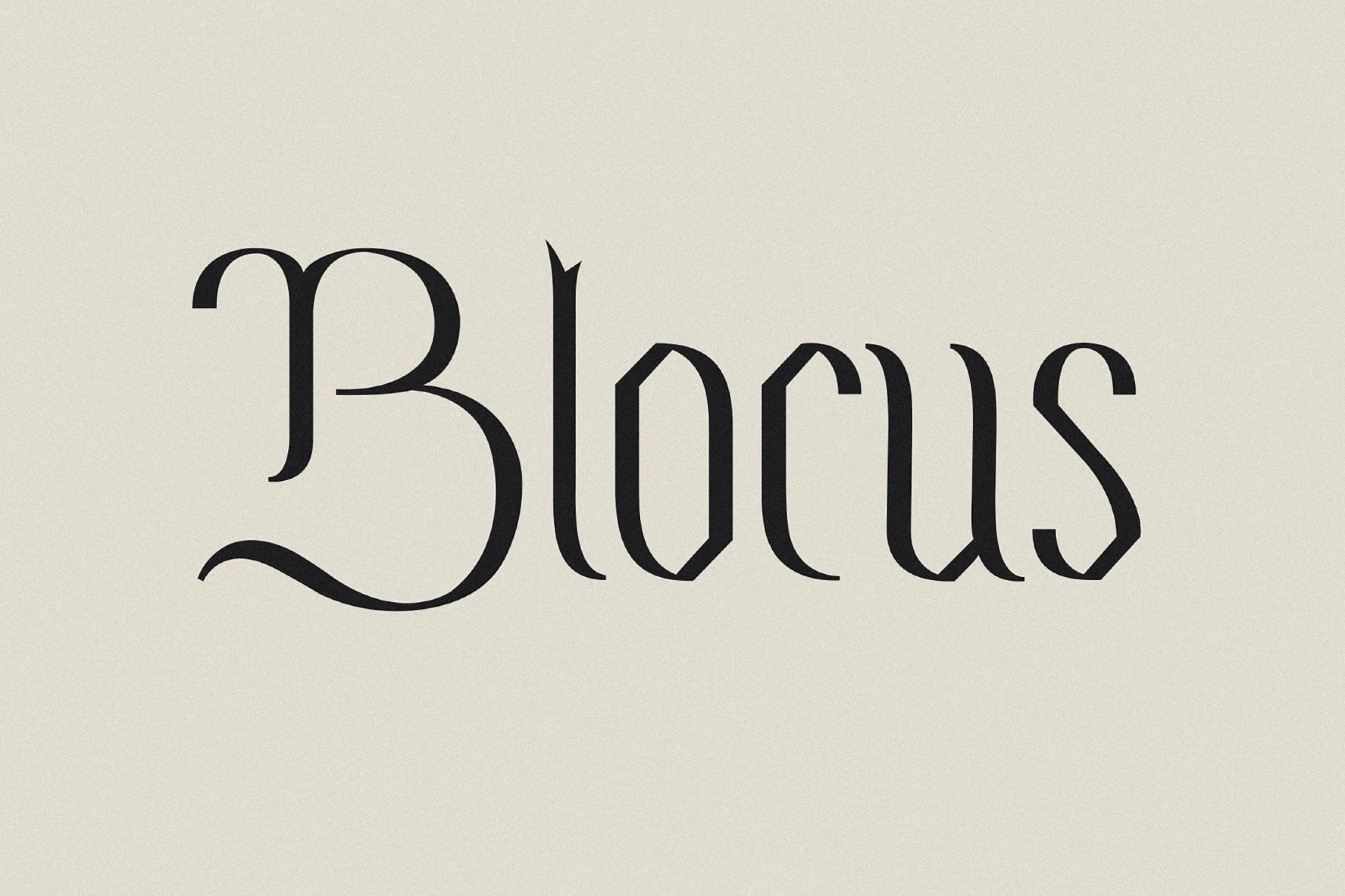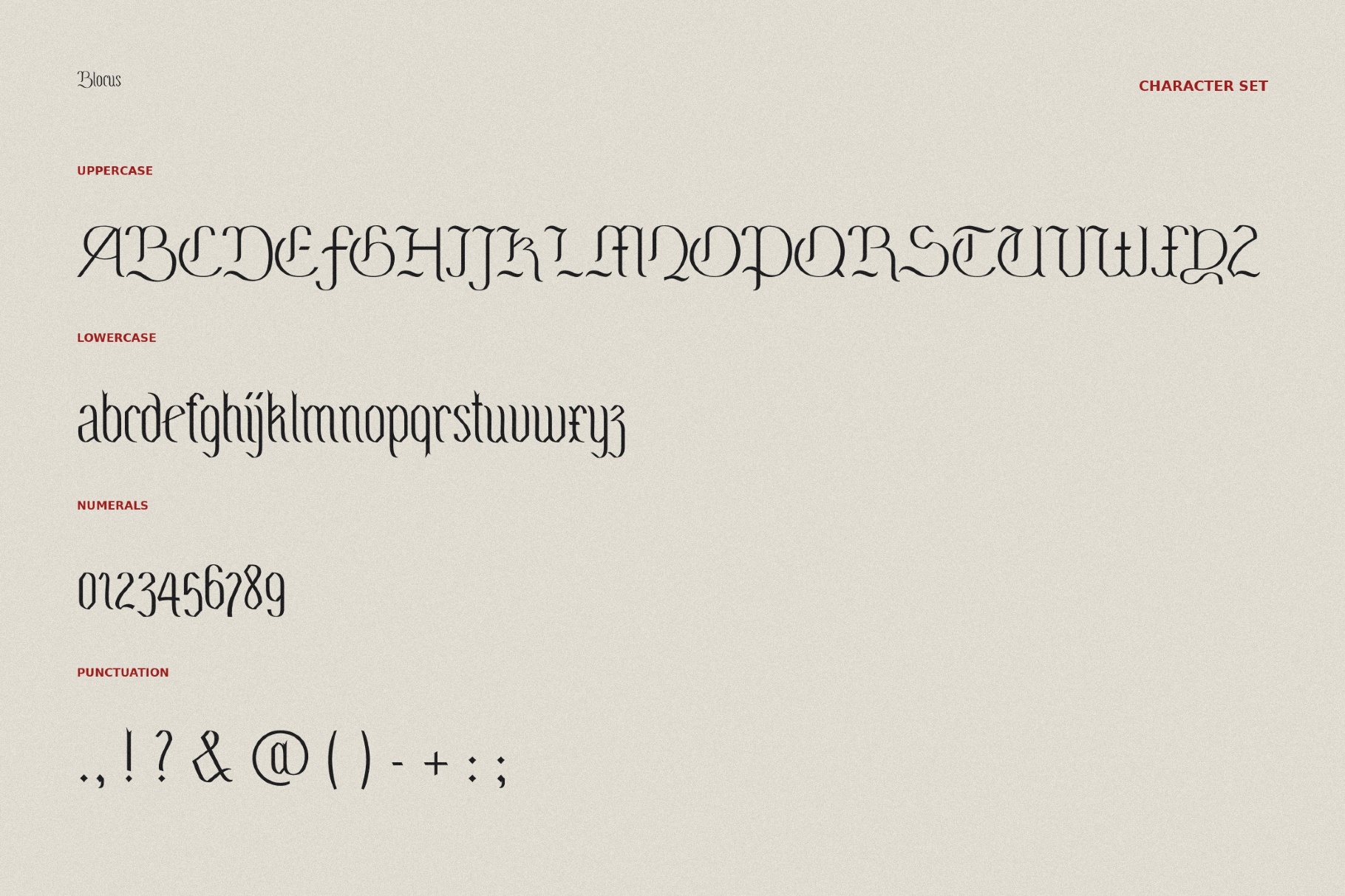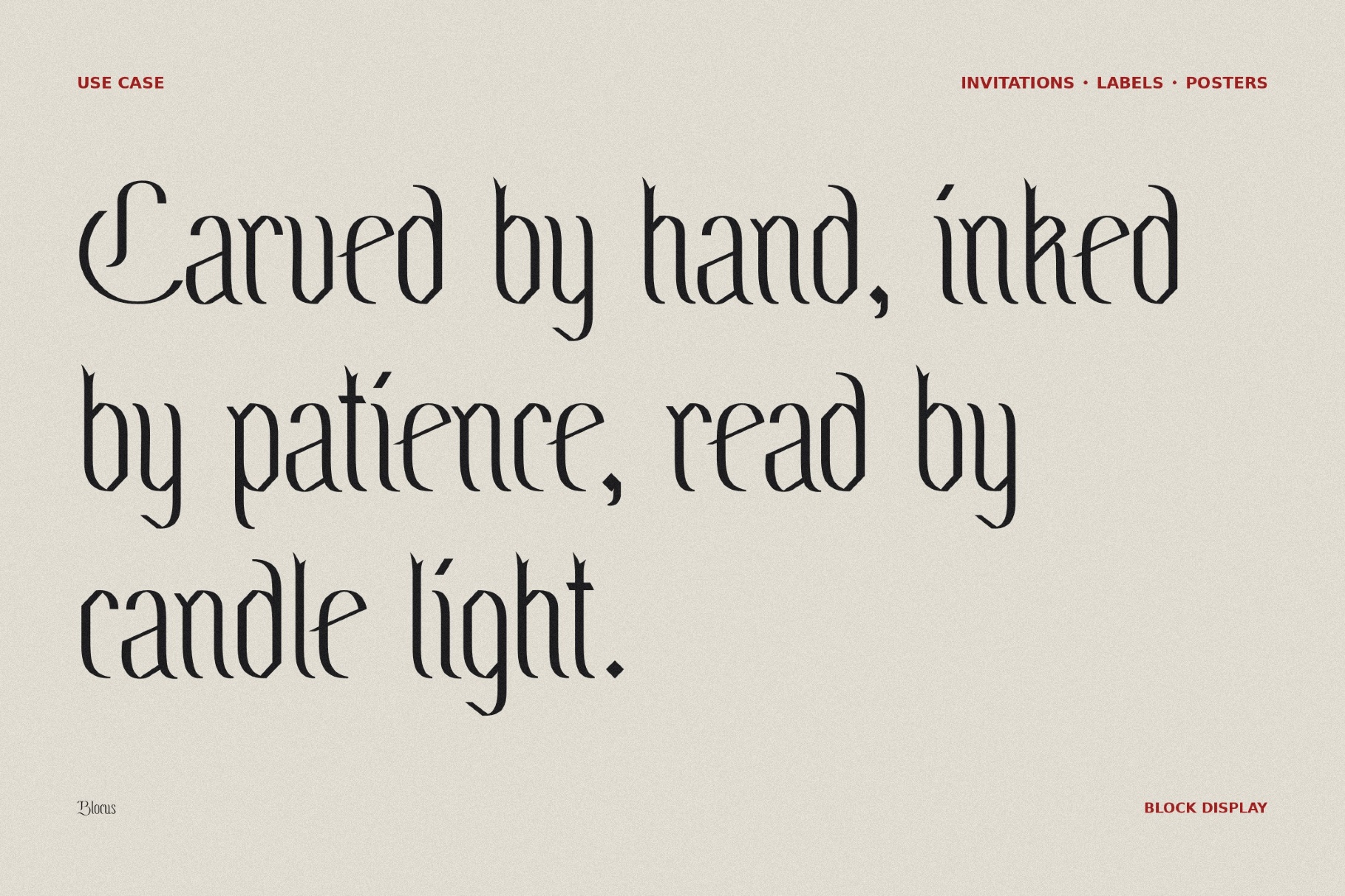
Blocus - Gothic Book Font
Blocus
Blocus with tall blackletter strokes carries a soft, velvety weight, while the ornate swashes add a ceremonial sweep drawn from Gothic wedding stationery and French type specimens.
An elegant and solemn font is a good choice for luxury logos, formal invitations, wine labels, perfume packaging, fantasy covers, tattoo lettering, editorial headlines, boutique branding, and packaging.